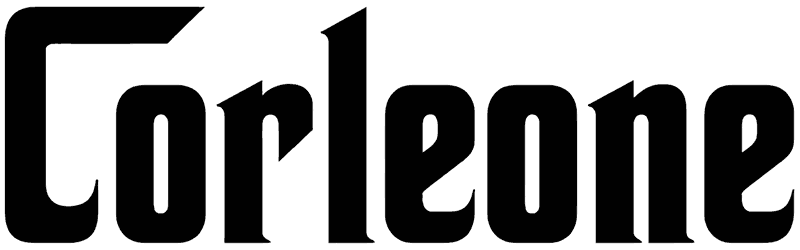
Corleone Font
Designed byFontMesa
Step into the world of cinematic legend with the Corleone font, inspired by the iconic title design of The Godfather movies. This elegant and powerful typeface captures the drama, authority, and timeless style of the mafia masterpiece. Perfect for posters, vintage designs, fan art, or any project that demands a touch of classic class and mystery. Make your offer unforgettable — use Corleone to bring that unmistakable Godfather aesthetic to life. It’s an American font you simply can’t refuse.